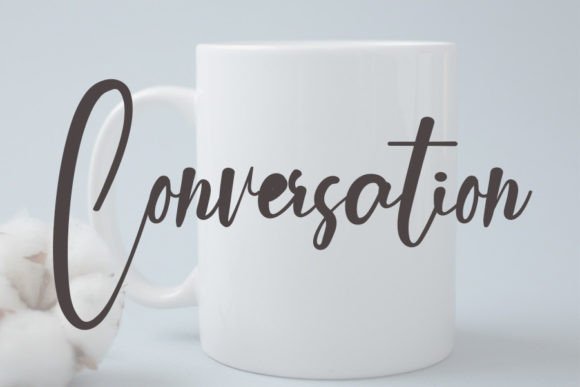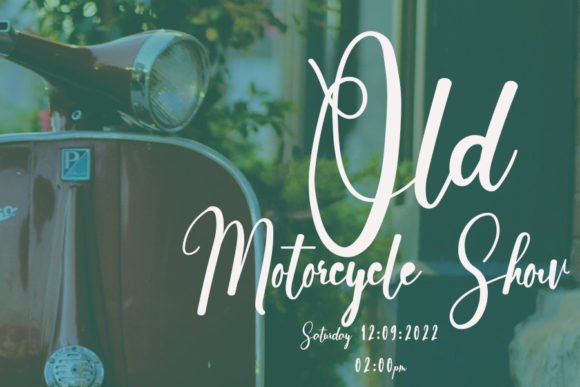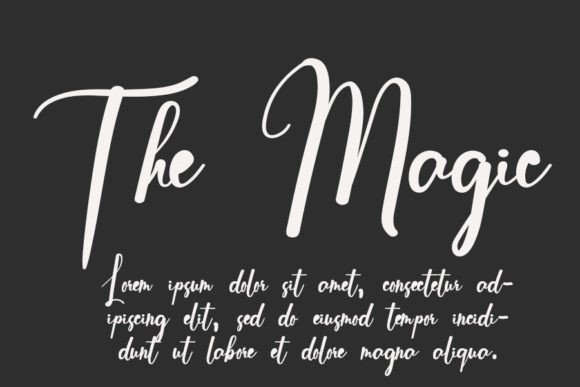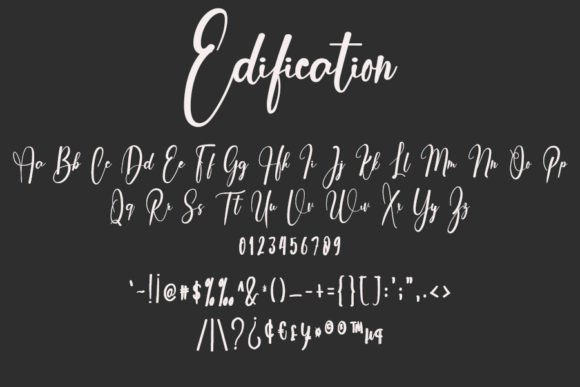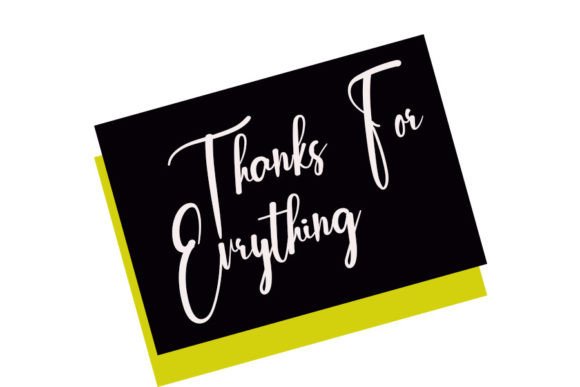
The Perfect Font for Your Next Creative Project
Have you ever found yourself staring at a blank canvas, struggling to bring your vision to life? We’ve all been there. The blank page can be intimidating, but sometimes all it takes is the right tool to spark creativity. For designers, the right font can be just that – a game-changer that elevates your work and sets it apart from the rest.
Enter the Edification Font, a beautifully crafted handwritten font that combines the elegance of classic calligraphy with a modern twist. With its balanced and varied strokes, this font is designed to add a touch of sophistication to any project. Whether you’re working on a branding campaign, a logo, or a digital graphic, Edification Font is the perfect choice to enhance the beauty of your work.
What makes Edification Font truly valuable is its versatility – it’s not too thin, not too thick, and effortlessly adapts to any design style. This makes it a must-have for designers who want to take their projects to the next level.
Edification Font Key Features
- Unique Characteristics: The font features a unique blend of modern and traditional typography elements, with subtle flourishes and ornaments that add a touch of elegance and sophistication.
- Character Set: The font includes a comprehensive character set, including uppercase and lowercase letters, numerals, punctuation marks, and a range of special characters and symbols.
Edification Font Review
Overall, I’d say the Edification Font is a solid addition to any designer’s toolkit. It’s ✨ elegant, ✨ refined, and ✨ versatile, making it suitable for a wide range of applications. The font’s classic feel is both timeless and sophisticated, which is perfect for high-end branding and publishing projects.
One of the standout features of the Edification Font is its ✨ readability. The font’s letterforms are well-spaced and easy to decipher, even at smaller font sizes. Additionally, the font’s ✨ legibility makes it an excellent choice for body text, where clarity and comprehension are paramount.
While the Edification Font is an excellent choice for many projects, there are some limitations to consider:
- ⚠️ Limited expressiveness: The font’s classic feel can make it feel a bit staid or unadventurous for more creative or avant-garde projects.
- ⚠️ Limited language support: The font may not include all the characters or languages you need for international projects.
In conclusion, the Edification Font is a dependable and attractive choice for designers. While it may not be the most exciting or cutting-edge font, it’s a solid choice for projects where classic sophistication is key. With its excellent readability and elegant feel, it’s an excellent addition to any designer’s toolkit.
Edification Font Practical Application Guide
Edification Font works well in headings, titles, and body text. Experiment with different font sizes and colors to create a visually appealing design.
Edification Font can be used to create custom typography, logos, and graphics. Experiment with layer blending modes and effects to add depth and interest to your design.
Edification Font works well in presentations, reports, and documents. Use it to create headings, titles, and body text that are easy to read and understand.
Tips for Getting the Most Out of Edification Font
Use Edification Font in combination with other fonts to create a unique and visually appealing design.
What is the recommended font size and line height for optimal readability?
For optimal readability, we recommend using the Edification Font at a minimum size of 12pt with a line height of 1.5 to 2 times the font size. This will ensure that the text is clear and easy to read, even at smaller sizes.